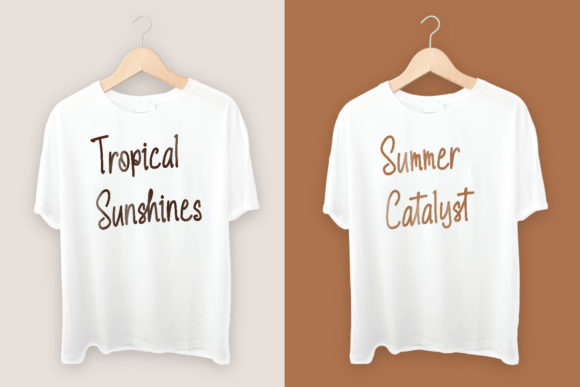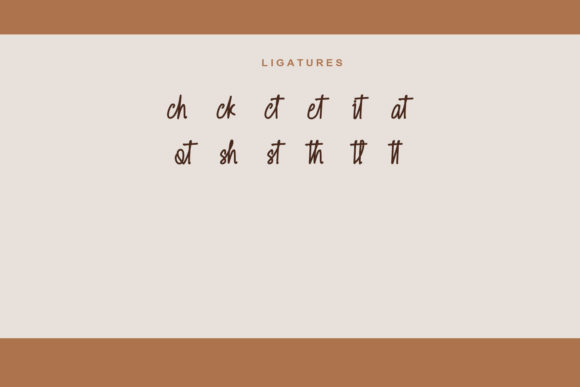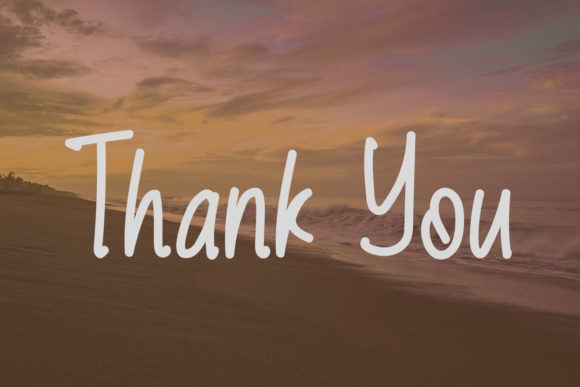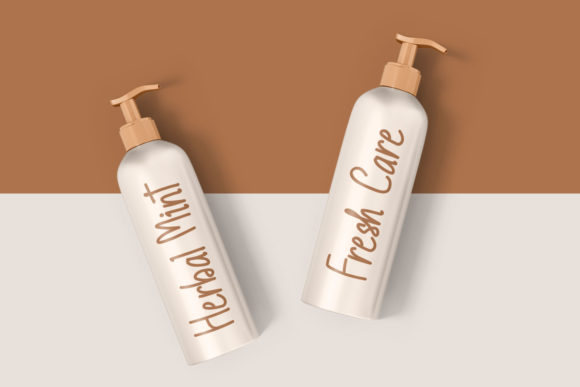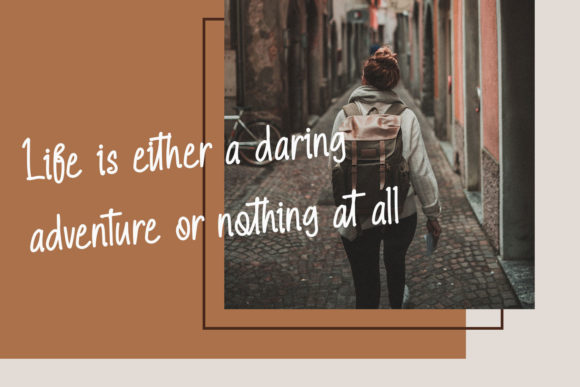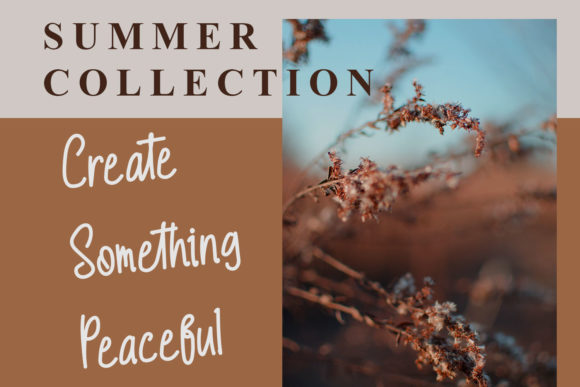
Ashford Keystone Font
About Ashford Keystone Font
Ashford Keystone is a lovely and timeless handwritten font. It is the best choice for creating eye catching logos, branding and quotes. Every letter has a unique and beautiful touch, which will make your design come alive!